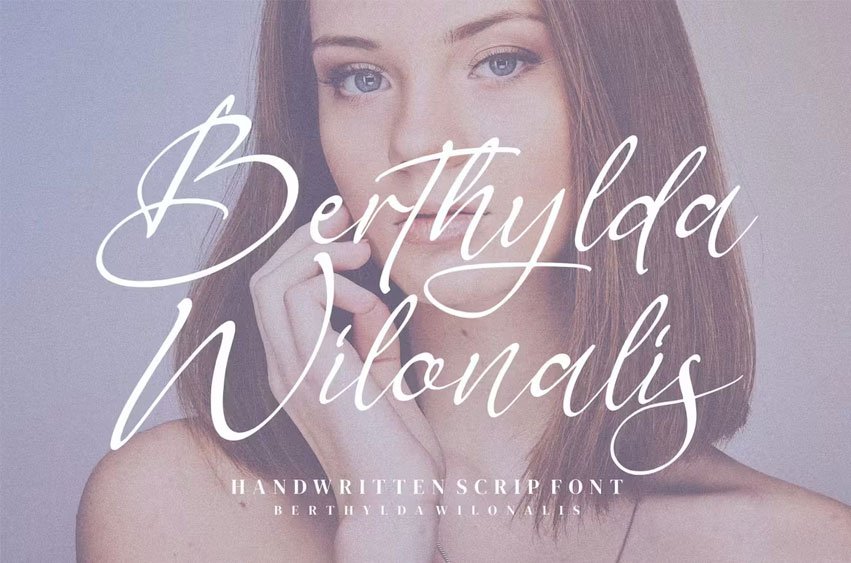
Berthylda Wilonalis Font Handwritten Script Font, from Integritype Studio, is a premium script font, perfect for any project that requires a distinctive, premium feel.
Ligature, Alternate & Multilingu